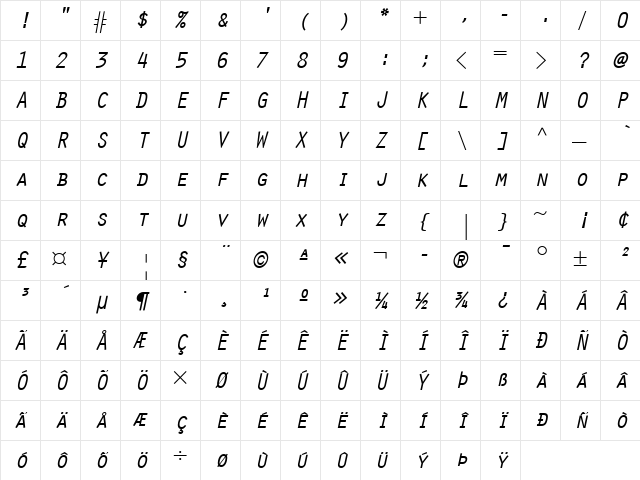
Orator LT Italic
Design Context for Orator LT Typeface
Orator LT takes a measured approach to typography — its balanced proportions and neutral character make it a reliable workhorse for both digital and print work. Its italic angle brings a sense of urgency and motion to the letterforms. Its slender proportions lend an understated elegance to any composition.
Pro Tip: Use Orator LT for emphasis, pull quotes, and subheadings where its slanted energy can add rhythm to the layout.